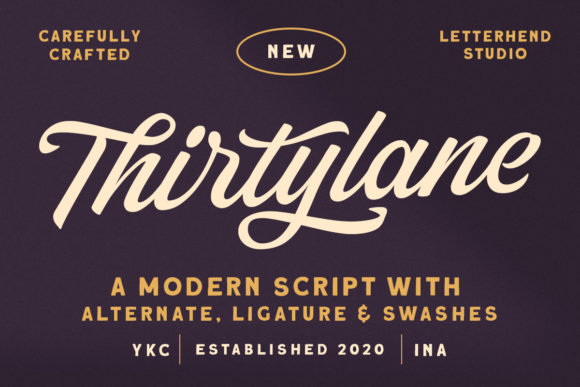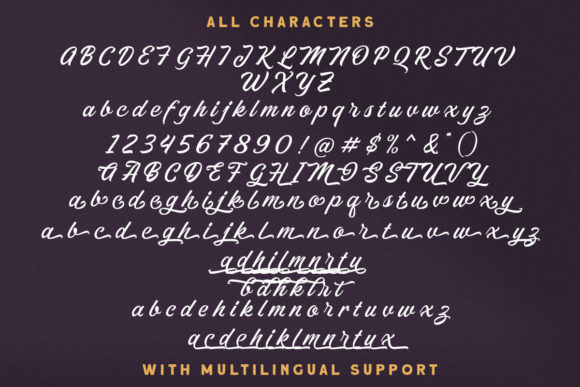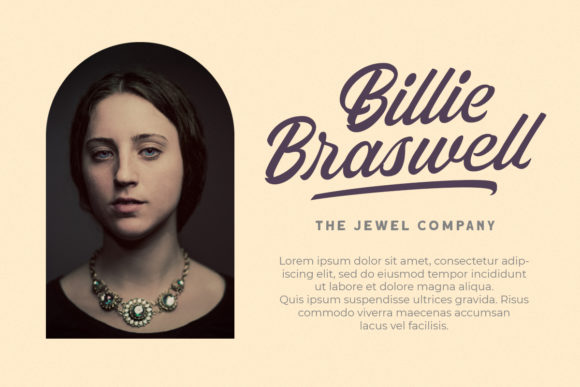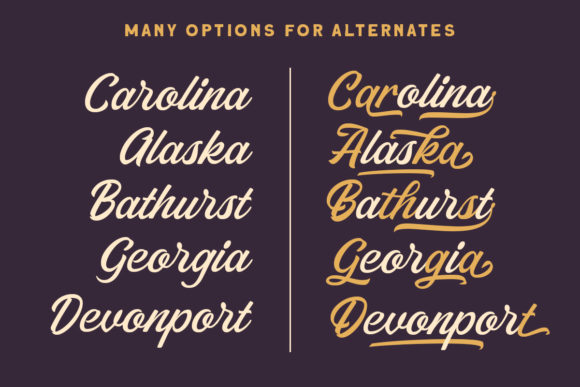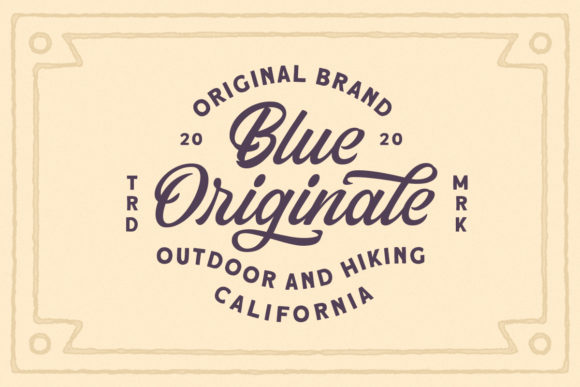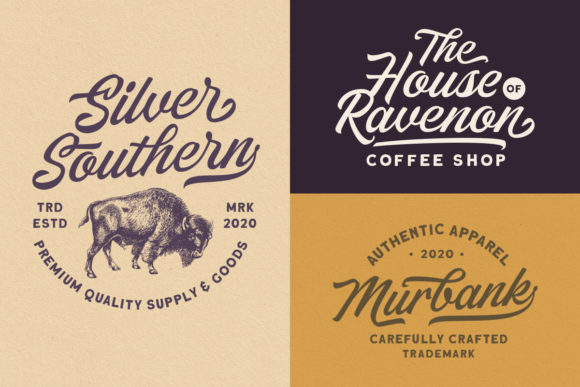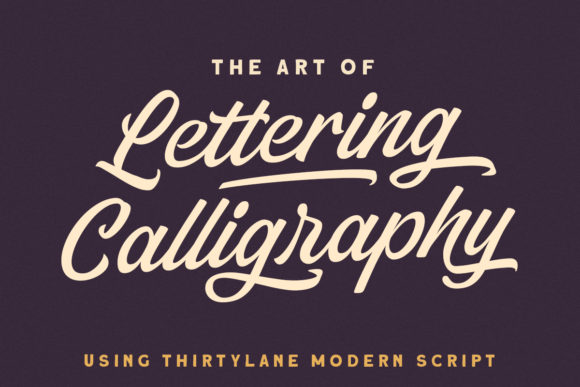
Thirtylane Font
About Thirtylane Font
Thirtylane is a vintage styled and bold handwritten font, crafted to give your headlines and logotype projects a stylish touch. This font reads as strong, confident, and dynamic and can add tons of nostalgic character to your designs.